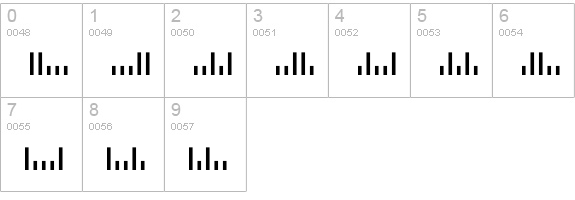
USPS Bar Code Font Details
The USPS Bar Code font is a highly efficient and widely recognized font that is specifically designed for use with the United States Postal Service's barcoding system. This font is essential for businesses and individuals alike who need to generate accurate and reliable barcodes for their mailings. With its clean and streamlined design, the USPS Bar Code font ensures that every barcode is scannable and easily readable by postal scanners. This font is optimized for printing, guaranteeing crisp and clear barcodes that meet the strict standards set by USPS. One of the best aspects of the USPS Bar Code font is that it is freely available to download at FontsMarket.com. This means that anyone can easily access and use this font without any additional cost. Whether you are a small business owner, a graphic designer, or simply an individual looking to streamline your mailing process, the USPS Bar Code font offers you a hassle-free solution. By downloading the USPS Bar Code font from FontsMarket.com, you are gaining access to a versatile and reliable tool that will help you save time, improve accuracy, and ensure the smooth processing of your mailings. Don't miss out on the opportunity to enhance your mailing operations with this free and easily accessible font. Download the USPS Bar Code font today and experience the convenience and efficiency it brings to your barcoding needs.